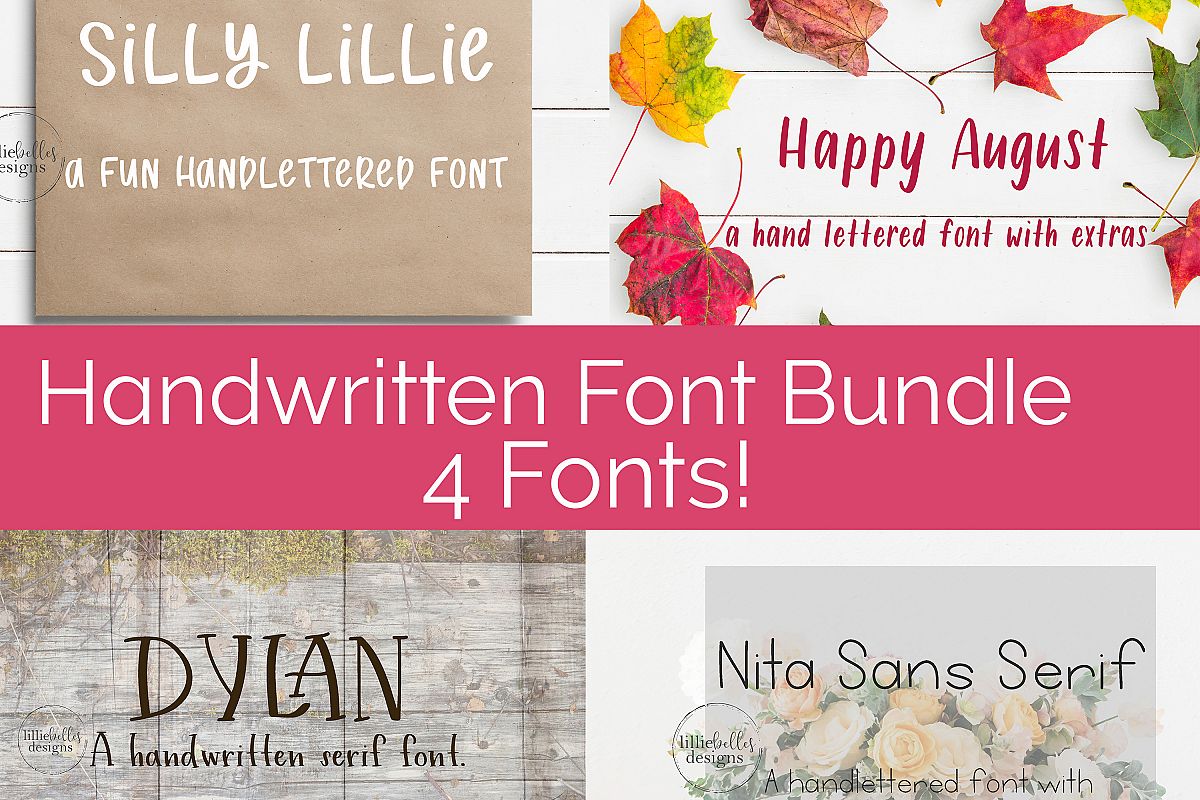
Handwritten Print Fonts bundle
Handwritten Fonts Bundle - Print Edition!
♥  This bundle includes 4 fonts! â™¥
This font bundle includes:
• Silly Lillie - A fun and silly font.
• Happy August - Perfect for fall & includes extras!
• Dylan - A serif font
• Nita - A sans-serif font